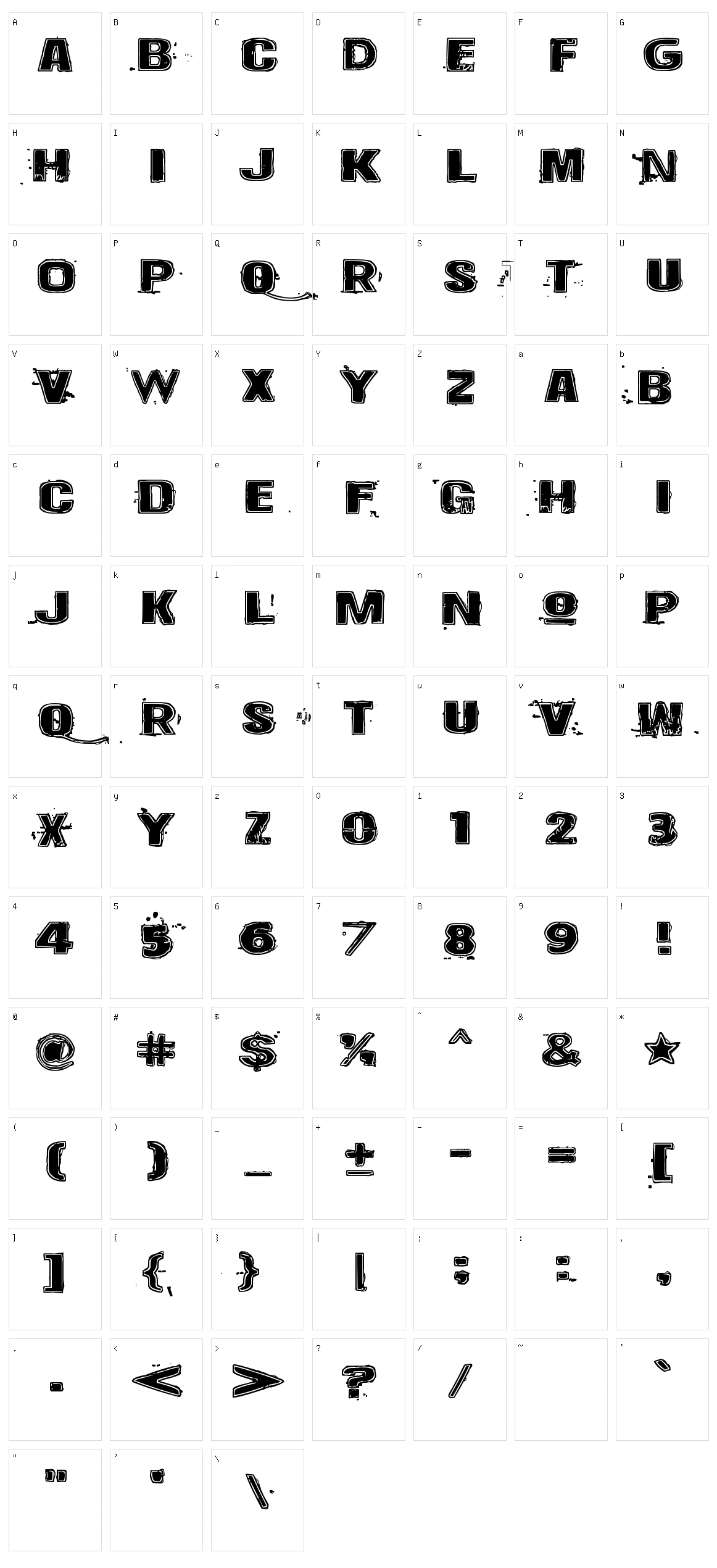
The free font Krakle! is carefully designed by junkohanhero, showcasing a thoughtful balance of creativity and usability and falls under the Eroded font style. When you download the ZIP file, it contains only 55.04 KB of font files, making it lightweight and quick to download. Please review the license details below to understand permitted usage and distribution rights. If license information is not available, we recommend using this font for personal projects only or contacting the author directly for commercial usage permissions.